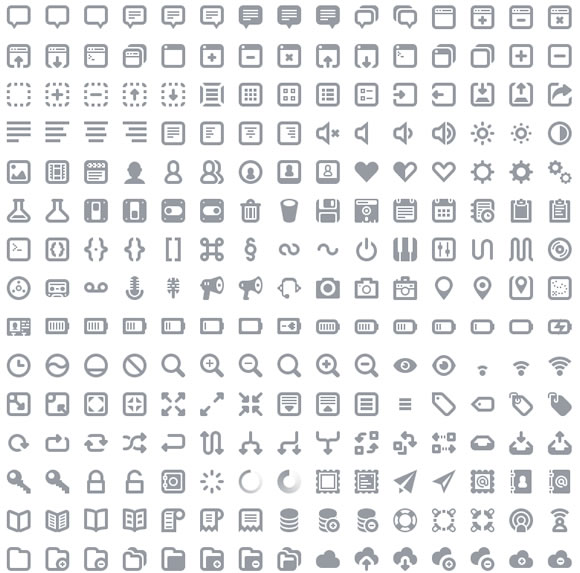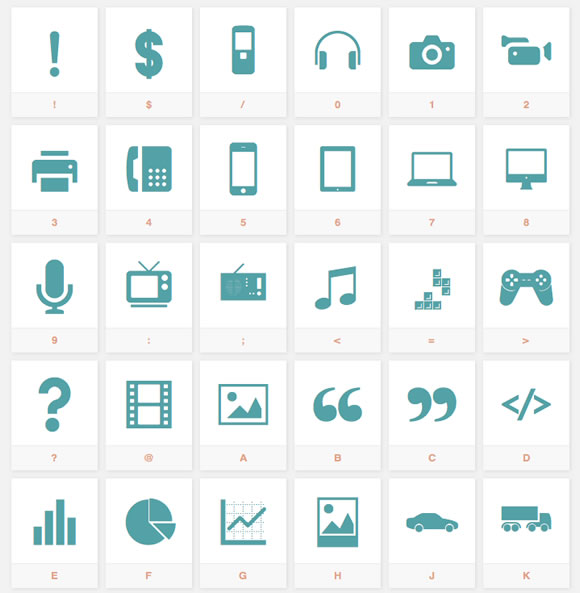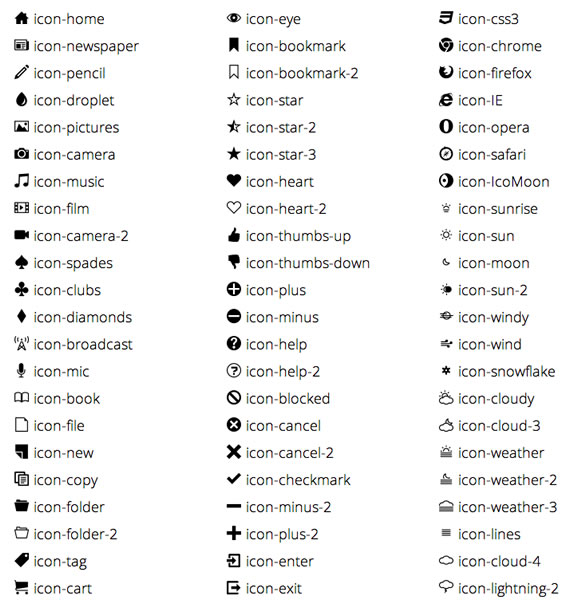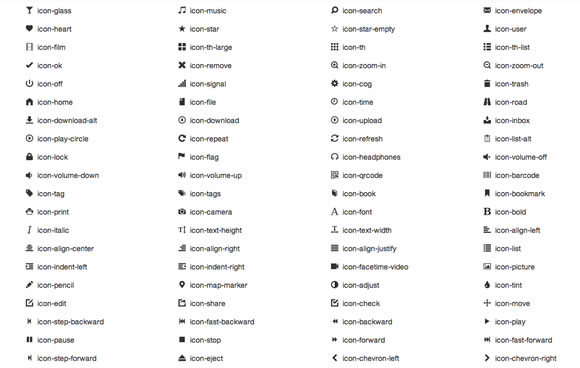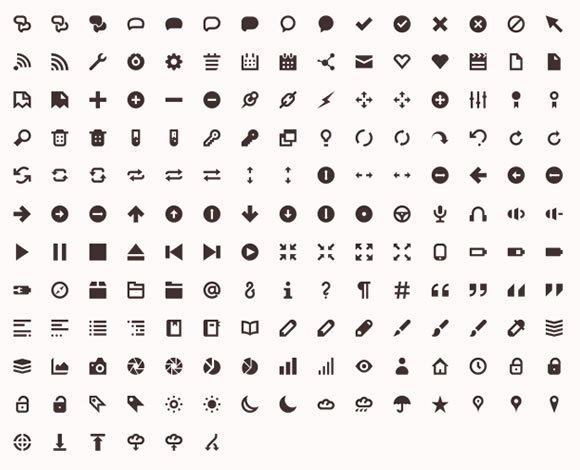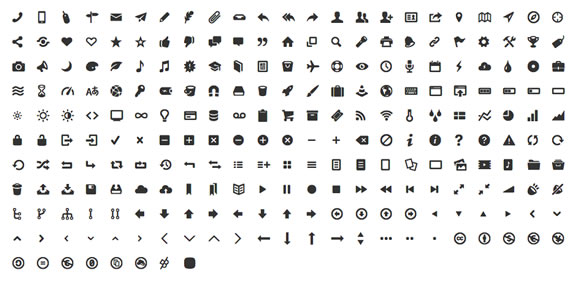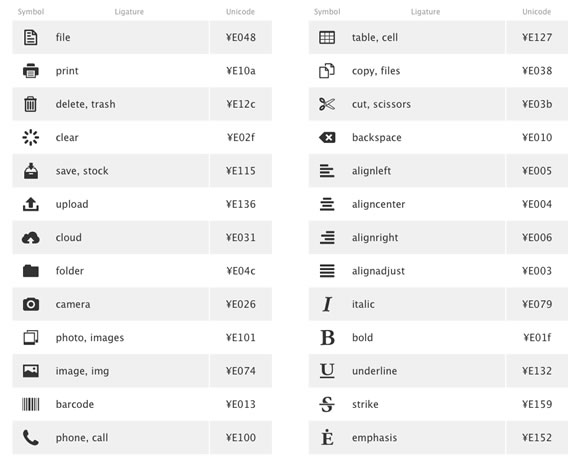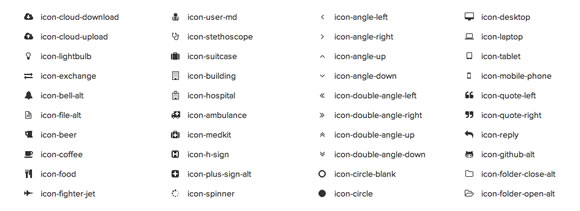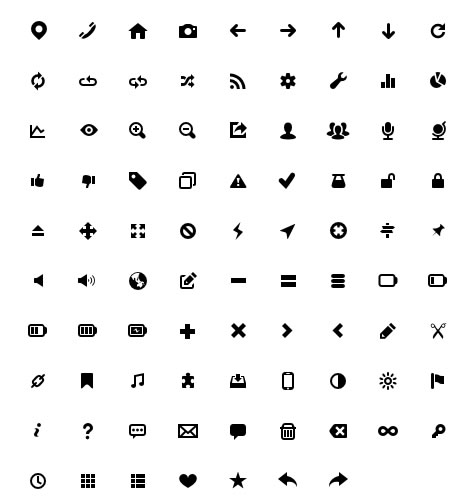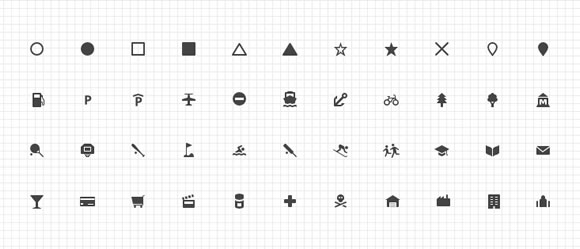
A few Free Useful Free Icon Font Sets
Icon fonts are great because, as you may have guessed, they are delivered as a font. This gives them a number of advantages over traditional image icons. For instance, if you want to change the color, it can easily be done with CSS.
Icon fonts are great because, as you may have guessed, they are delivered as a font. This gives them a number of advantages over traditional image icons. For instance, if you want to change the color, it can easily be done with CSS. Whereas with an image, you would need to have a separate version of the icon. Scaling and adding effects, such as shadows, is just as simple.
Here we’ve rounded up a few useful sets of free icon fonts. You’ll find that these can be invaluable for your interface and web design projects.
Metro UI
Elusive Icons
Sosa
Maki
Ligature
Font Awesome
Typicons
Iconic Icon Set
Batch
Entypo